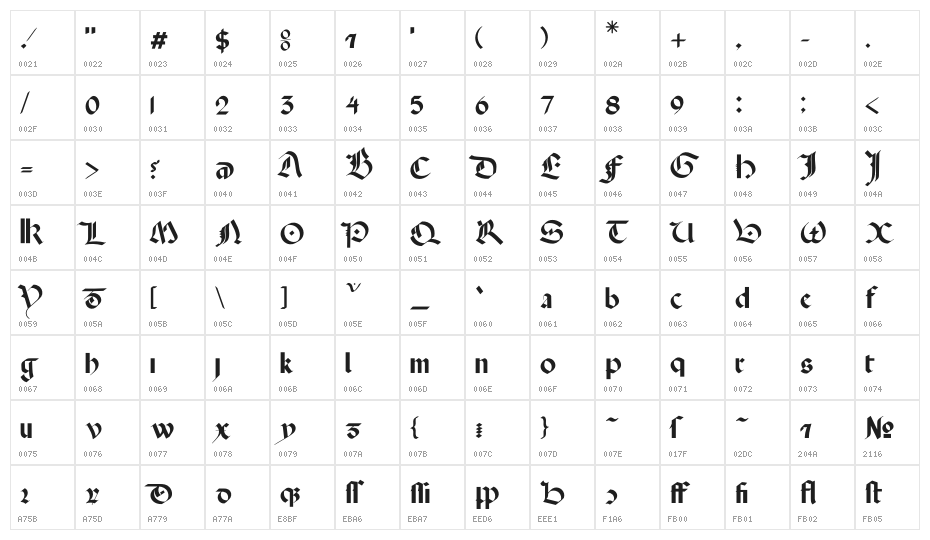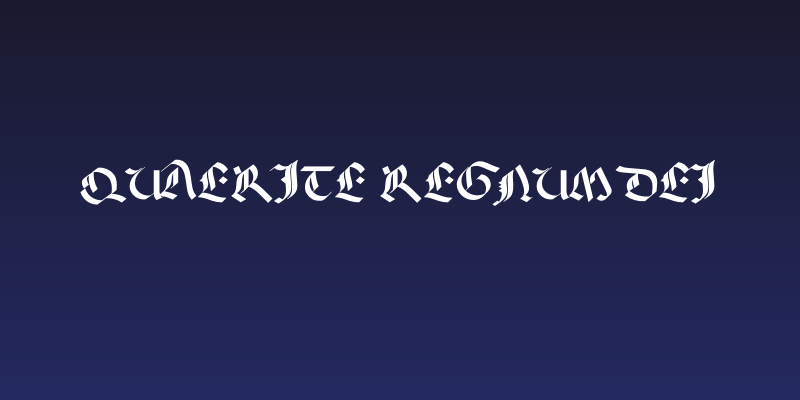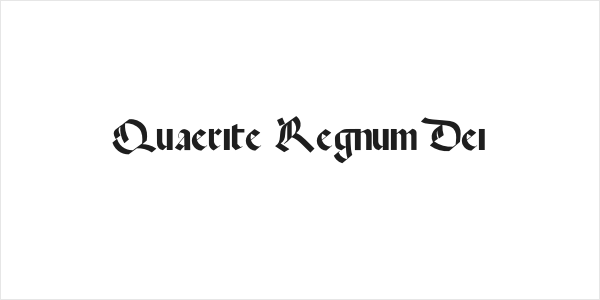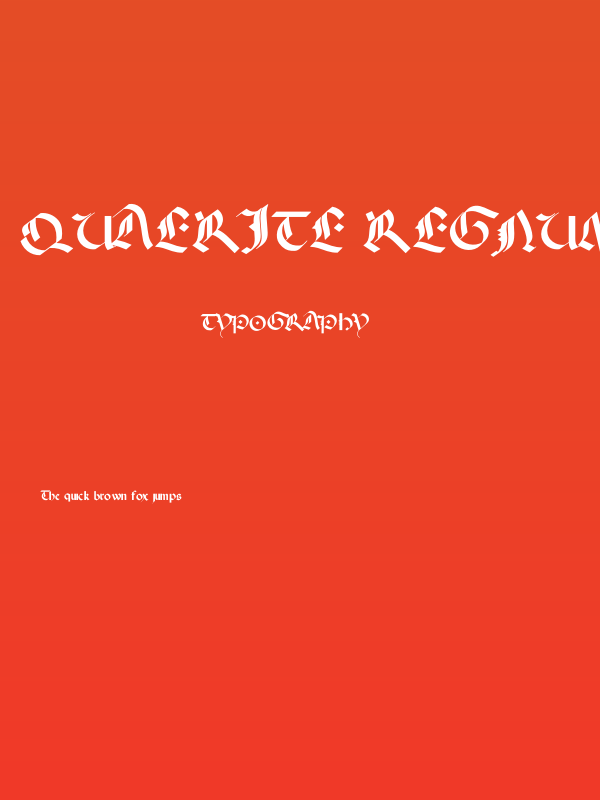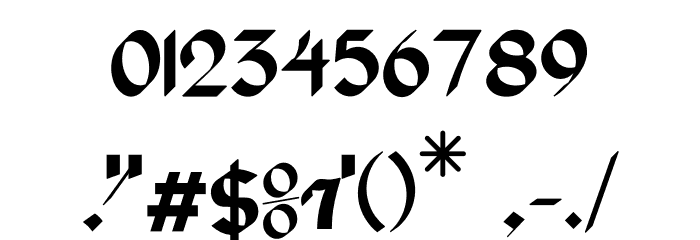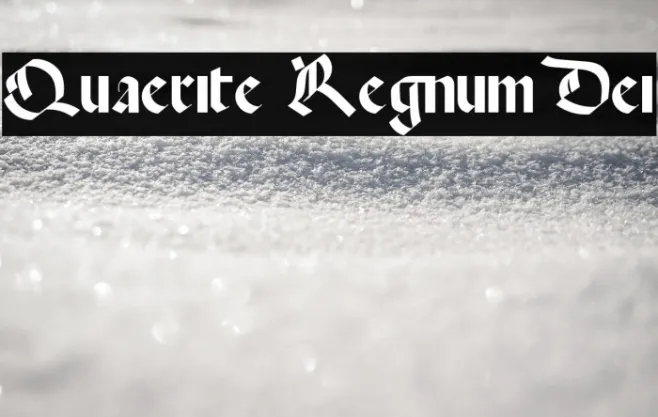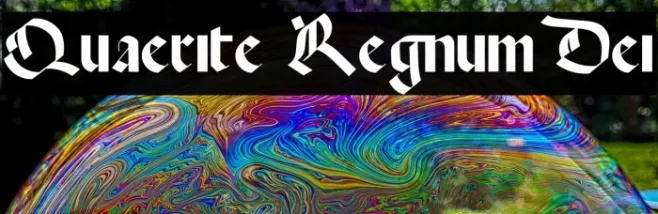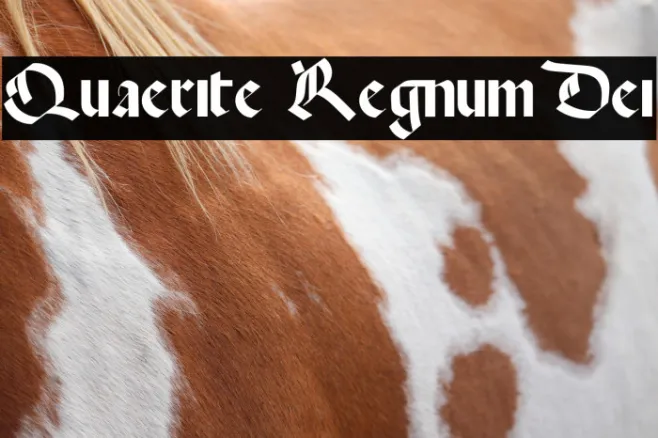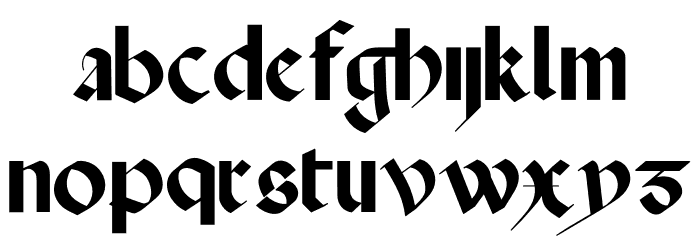
Quaerite Regnum Dei Font
Quaerite Regnum Dei Description
This font embodies a classic blackletter style, characterized by its intricate and angular letterforms. The uppercase letters are ornate, with sharp edges and dramatic flourishes, reminiscent of medieval script. The lowercase letters maintain a similar aesthetic, with a slightly more streamlined appearance for readability. The numerals are bold and consistent with the overall gothic theme, featuring pointed serifs and a strong presence. Special characters are designed to complement the text, maintaining the same level of detail and intricacy. This font is ideal for projects that require a historical or traditional touch, such as invitations, certificates, or branding that seeks to evoke a sense of heritage and sophistication.
| Use Case | Headlines, Logos, Decorative text |
| Proposed Projects | Ideal for historical documents, vintage-themed designs, branding, and decorative purposes. |